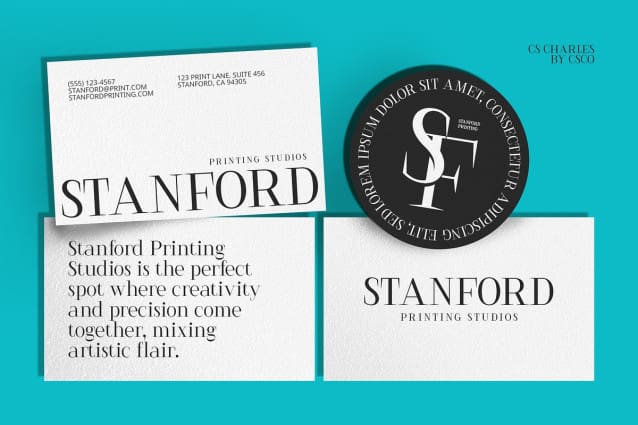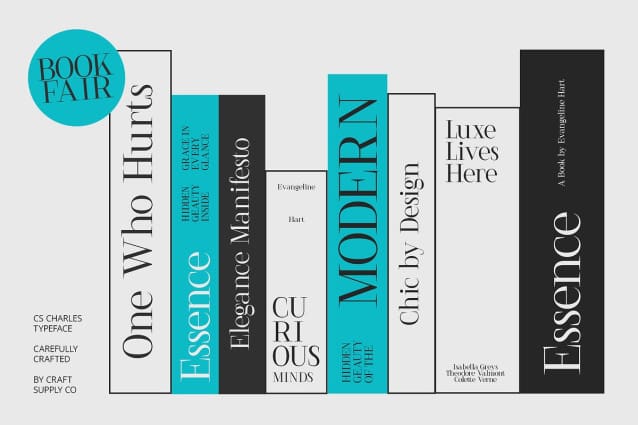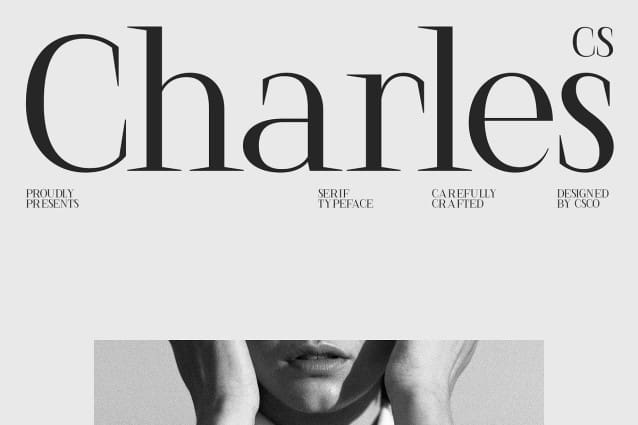
CS Charles Font
CS Charles Font – Serif Font stands out with its classic serif design, featuring clean, precise lines and balanced proportions. This design choice makes it ideal for formal documents, corporate branding, and editorial projects, where professionalism and readability are paramount.
Sophisticated and Reliable Experience the sophistication and reliability embodied in CS Charles Font. Its well-defined serifs and balanced structure convey a sense of authority and trustworthiness, enhancing the credibility of any professional design. Perfect for projects where a refined, authoritative appearance is essential.
Versatile Application CS Charles Font is versatile enough for a wide range of applications, from corporate reports and official documents to high-end editorial layouts. Its elegant design ensures that it complements various professional settings while maintaining a polished and sophisticated look.
Elevate Your Design Whether you’re designing a brand identity, formal presentation, or stylish editorial piece, this font brings a touch of elegance and professionalism to your work. Its classic serif structure ensures a distinguished appearance, making it a valuable asset for any high-profile design project.